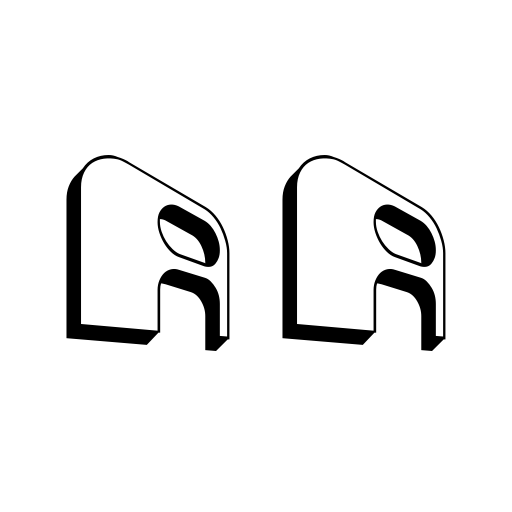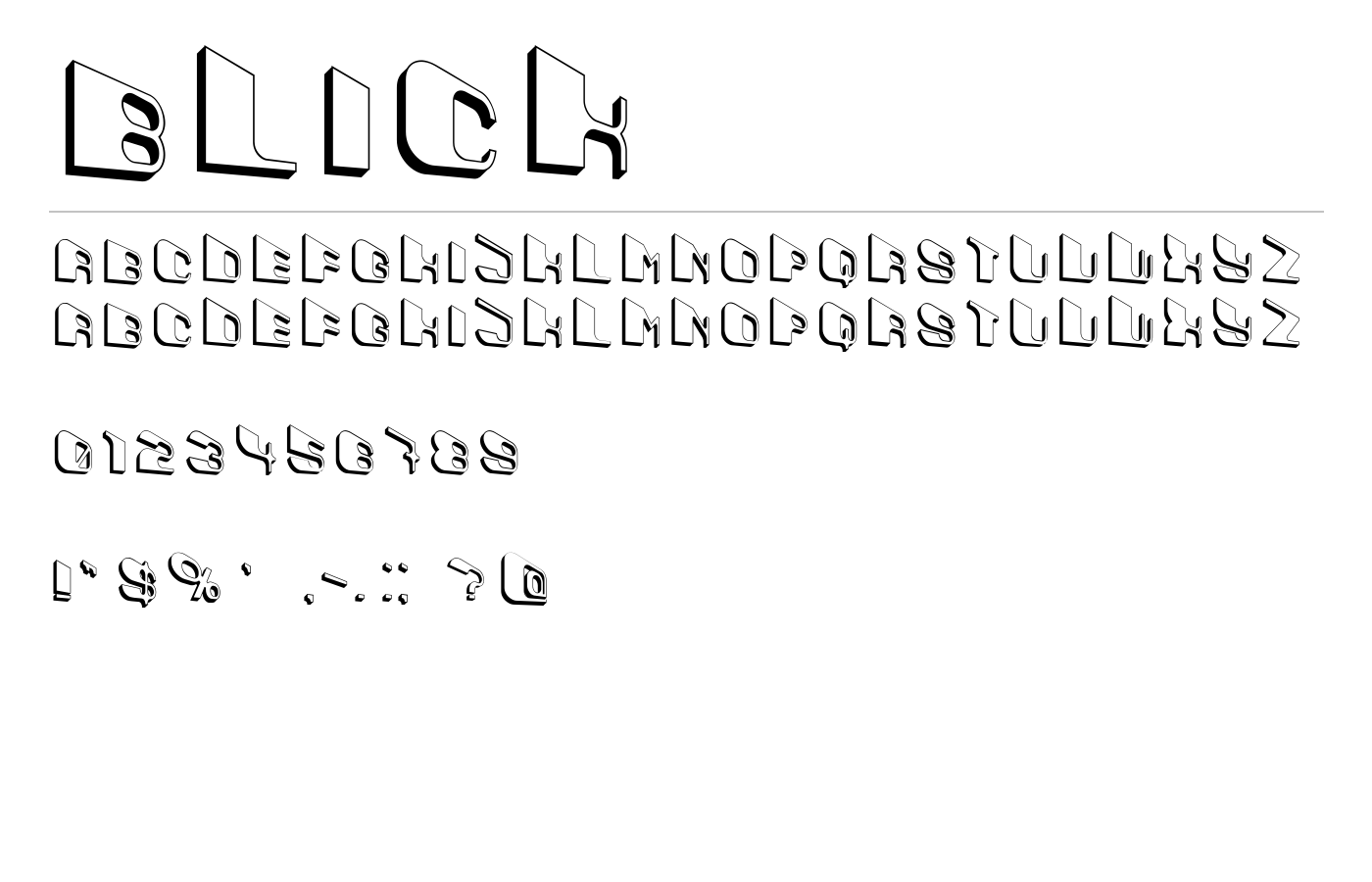
Blick is a bold, modern display font with a distinctive three-dimensional effect that creates a dynamic and playful visual impact. Its blocky, sans-serif letterforms combine clean lines with sharp angles and a unique shadow detail, making it ideal for eye-catching headlines, logos, and posters where a futuristic and creative vibe is desired. This font works best in large sizes and branding that aims to stand out with a strong, contemporary personality.
Blick Font
About Blick Font